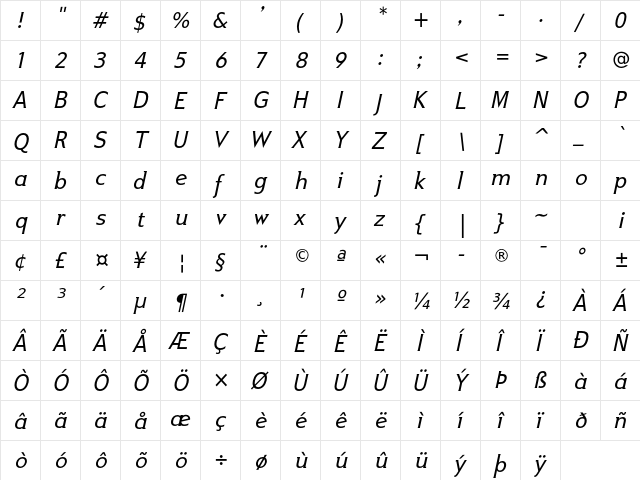
Ikarius ADF Std Italic
| Foundry | Arkandis Digital Foundry. |
| Designer | HARENDAL Hirwen |
Design Context for Ikarius ADF Std Typeface
Ikarius ADF Std is a composed and adaptable typeface that performs quietly and consistently across a wide range of design contexts. The dynamic lean of this cut emphasises speed and emphasis in any layout.
Pro Tip: Use Ikarius ADF Std for emphasis, pull quotes, and subheadings where its slanted energy can add rhythm to the layout.